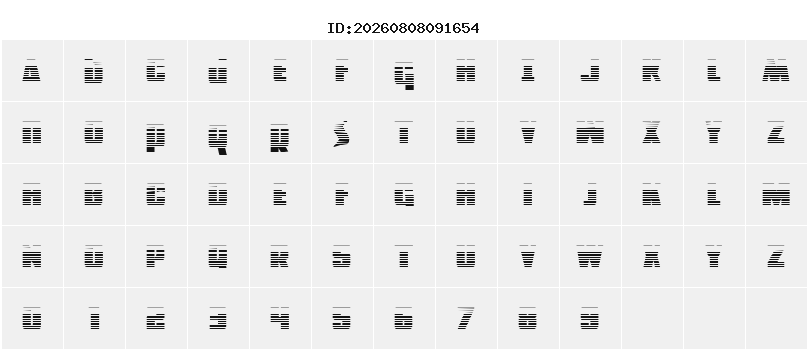
Power Lord Gradient Preview
• Font Name: Power Lord Gradient
• Full Font Name: Power Lord Gradient Regular
About Power Lord Gradient.ttf
Power Lord Gradient.ttf is a modern, elegant sans-serif font designed for ultimate readability and visual harmony. Perfect for branding, headlines, web design, and print materials.